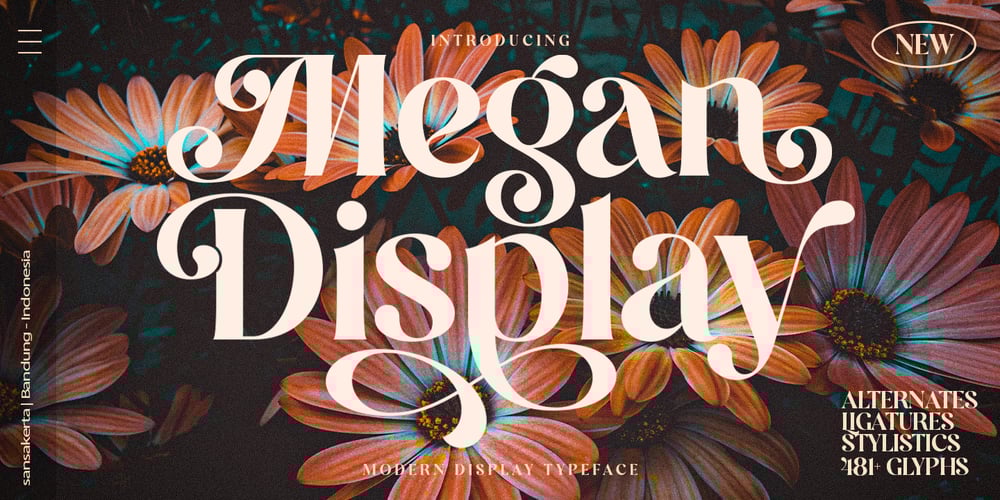
Megan Unique Display Font Family was designed by Dean Nugraha and published by Sansakerta. Megan Unique Display contains 1 styles and family package options. Megan is a special modern style font. Made with accurate accuracy with beautiful curves. With alternative characters and ligatures that make your work very special. It is perfect for branding design, logos, greeting cards, title packaging. and other designs. Immediately use our fonts to make your work even more amazing.-uppercase and lowercase letters-multilingual support -numerals-punctuation -Stylistic set 1 -Stylistic set 2 -Stylistic set 3 -Stylistic set 4 -Stylistic set 5 -Ligature CharactersWish you enjoy our font and if you have a question, don’t hesitate to drop message & I’m happy to help 🙂